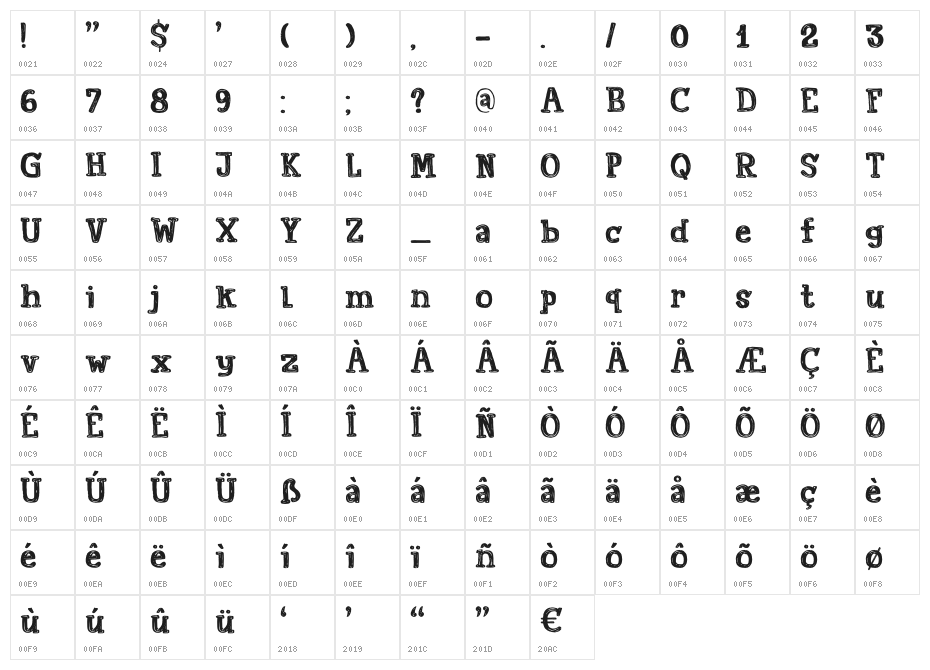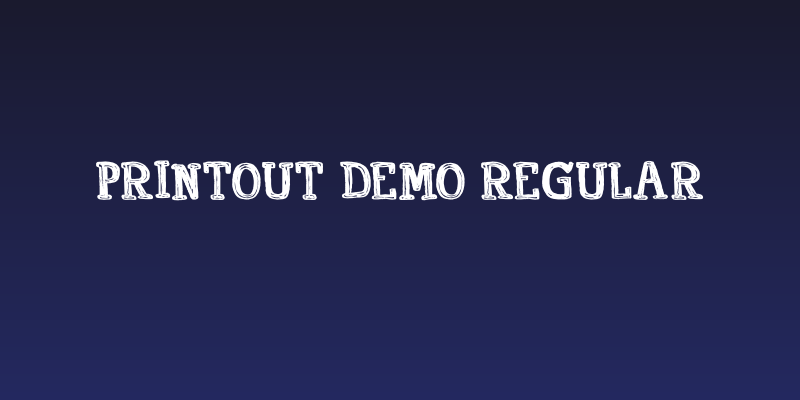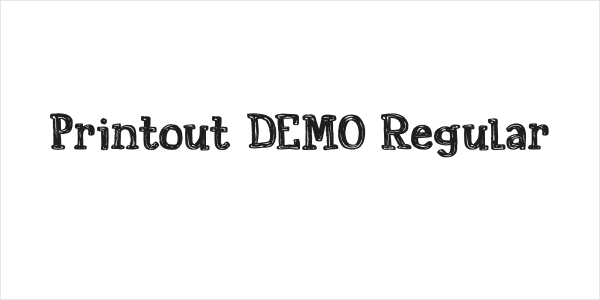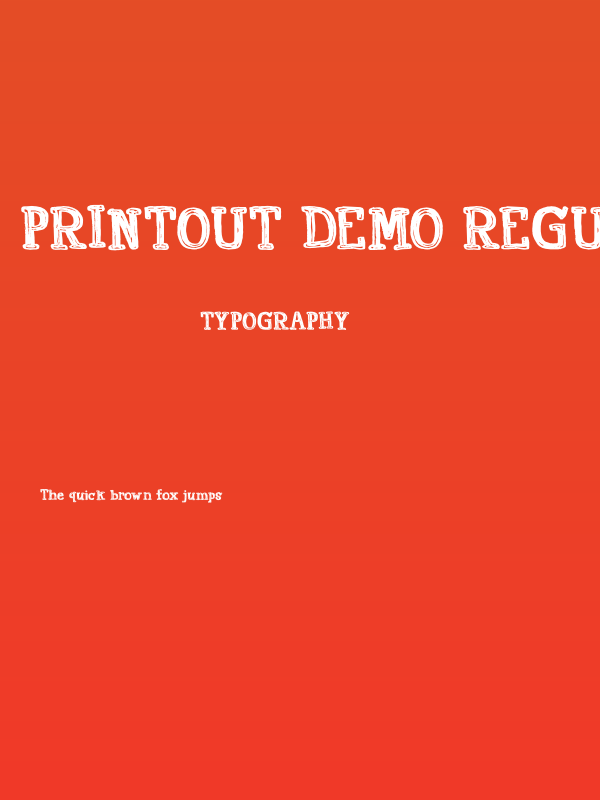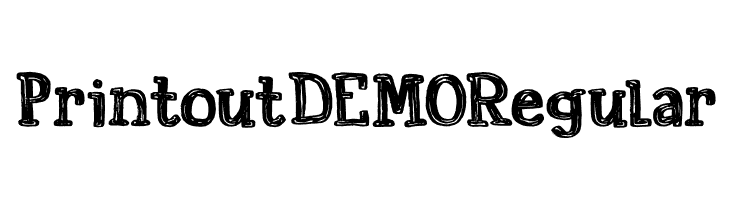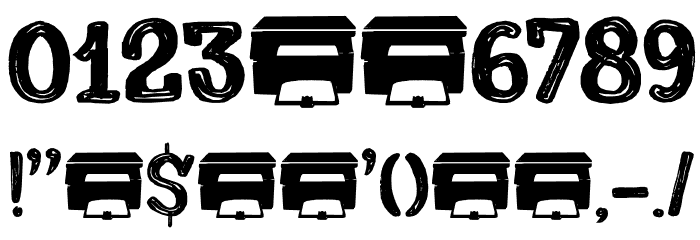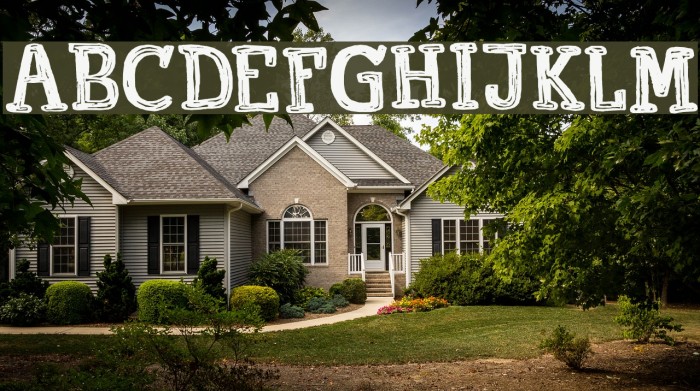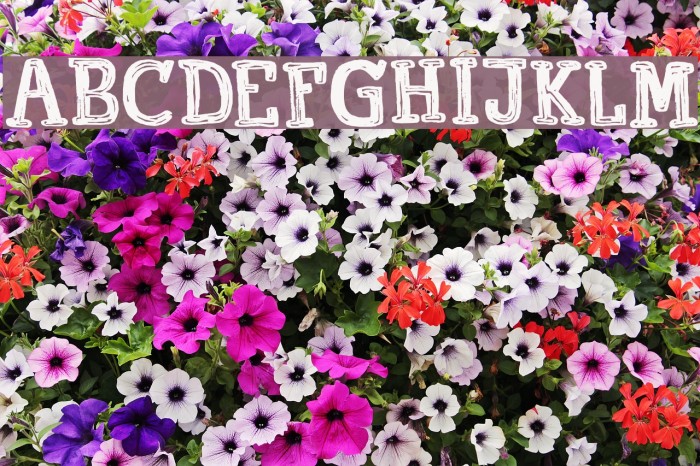
Printout DEMO Regular Font
Printout DEMO Regular Description
This font features a bold and playful design with a hand-drawn aesthetic. The characters have a rough, textured appearance, giving them a vintage, distressed look. The uppercase and lowercase letters maintain a consistent style, with thick strokes and rounded edges. The numbers and special characters follow the same design principles, ensuring uniformity across the font. The overall style is reminiscent of retro signage or posters, making it ideal for projects that require a touch of nostalgia or whimsy.
| Proposed Projects | Ideal for retro-themed posters, playful branding, vintage signage, and creative packaging designs. |